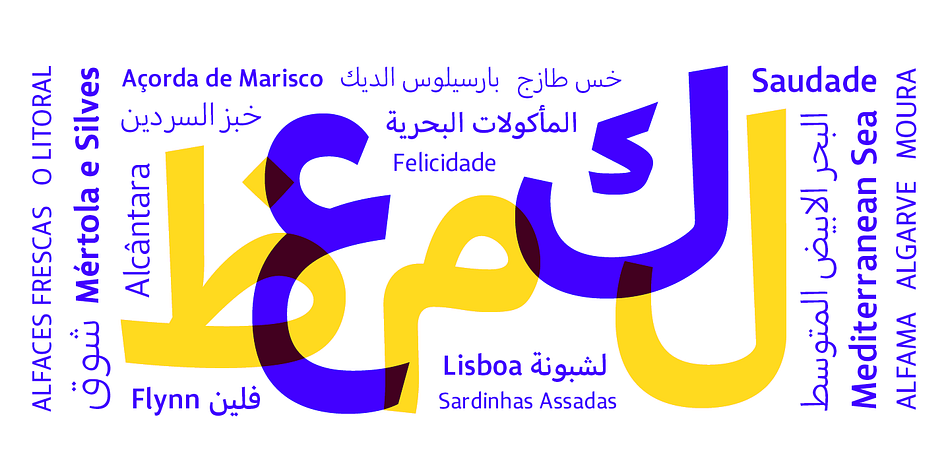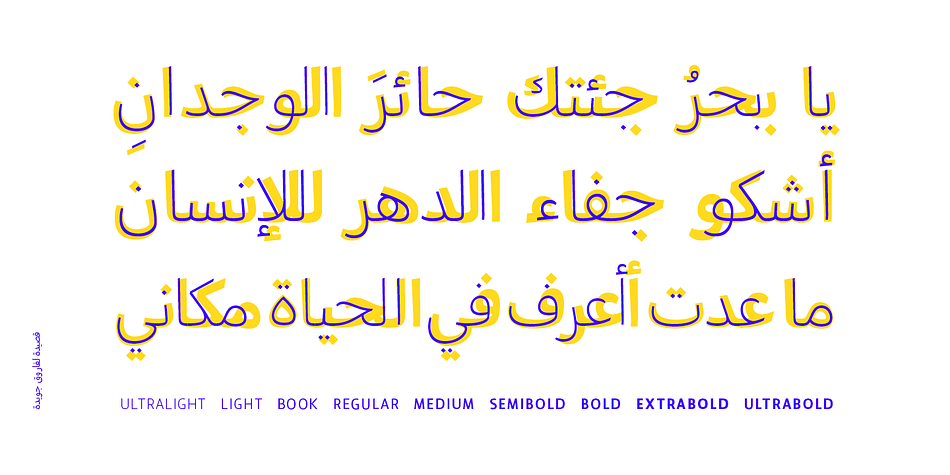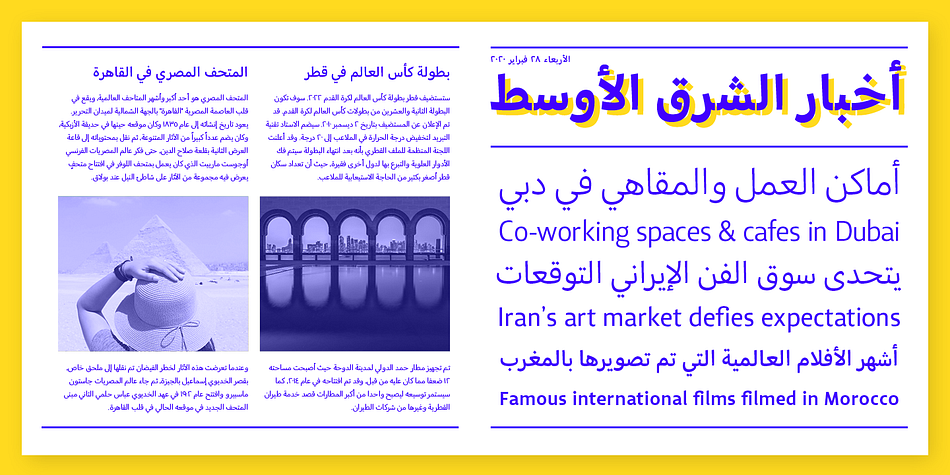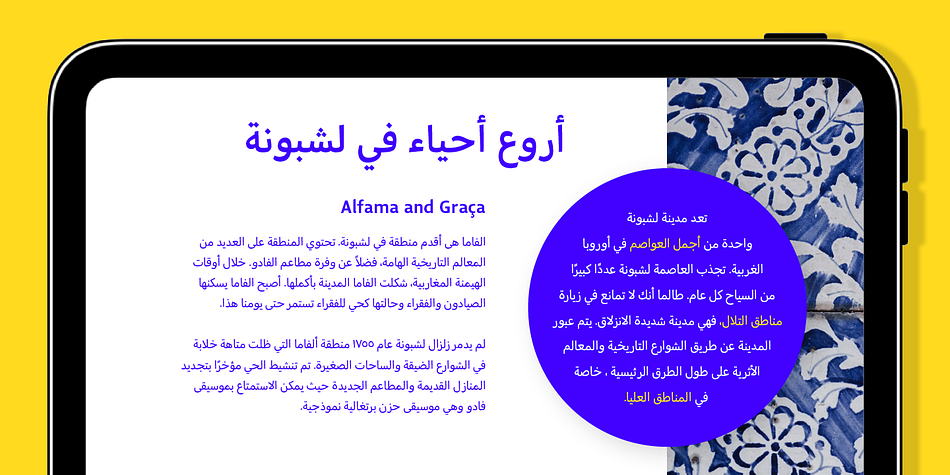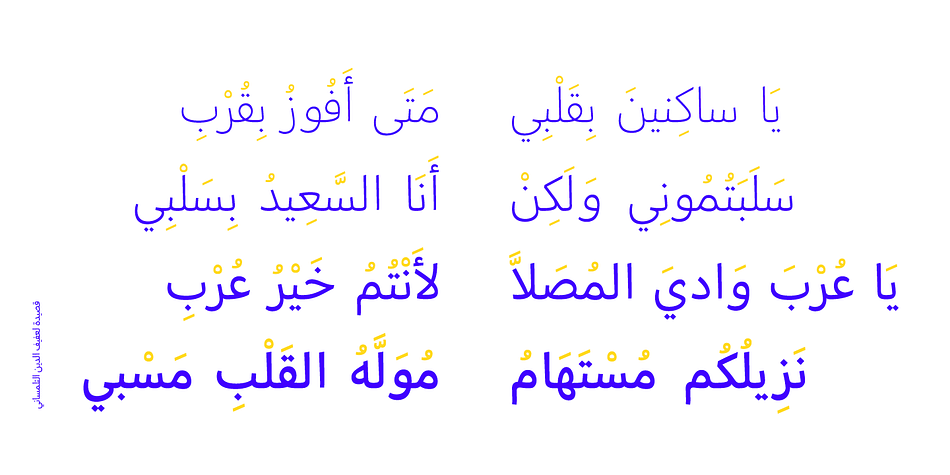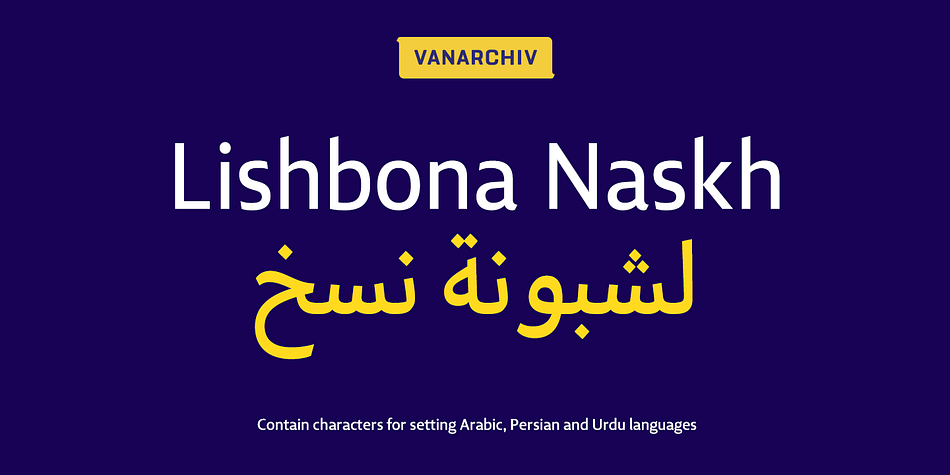
Designed by Ricardo Santos, Lishbona Naskh is a sans serif font family. This typeface has nine styles and was published by Vanarchiv.
This font family is simplified Arabic which was inspired from the modern Naskh style, where the reverse contrast is low and the counter forms are open. The original design is from the Lisboa Sans typeface (Latin), published on 2005 and after some years, this multi-script family is the compromise and balance between these two different scripts. This typeface contains characters for setting Arabic, Persian and Urdu languages.